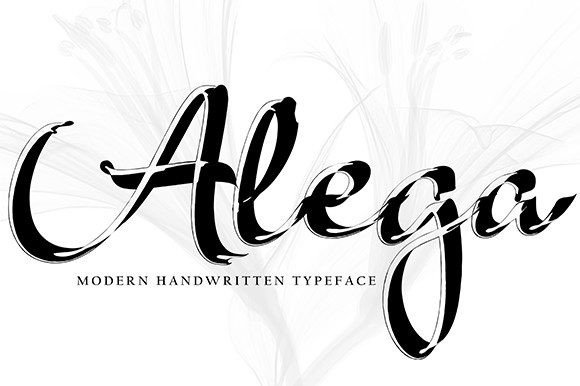
About Alega Font
“Alega” is more than just a font; it’s a quirky handwritten typeface designed to bring out the natural characteristics of your project with a touch of personality. Crafted with a handwriting style, this font is perfect for a variety of applications, including websites, SVG designs, home decor, branding, blogs, logos, invitations, and more.
The quirkiness of “Alega” is evident in its handwritten style, adding a unique and playful touch to your text. The font is designed to convey a sense of informality and creativity, making it suitable for projects that require a distinctive and casual aesthetic. Whether you’re working on web design or creating invitations, “Alega” injects a playful personality into your designs.
The versatility of “Alega” is showcased by its ability to adapt to different creative projects. Its quirky handwritten nature makes it a perfect choice for projects that demand a lighthearted and distinctive look. This font becomes a reliable asset for designers seeking a typeface that can infuse creativity and individuality into their work.
Adding “Alega” to your font collection becomes an invitation to explore the quirky and playful side of design. The font stands out as a unique asset that can enhance the visual appeal of your projects. Let it be the font that adds a touch of personality to your websites, branding, and various other creative endeavors.
In summary, “Alega” is not just a font; it’s a quirky handwritten typeface designed to infuse your projects with personality and creativity. Embrace its quirkiness and versatility, and confidently add it to your font library. “Alega” is an invitation to explore the playful possibilities it brings to your design projects.